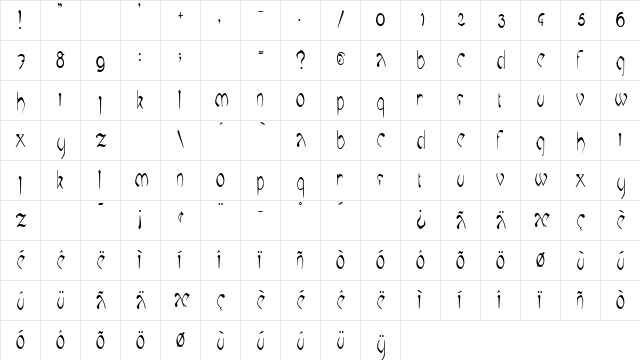
Mucha Condensed
Design Context for Mucha Typeface
Mucha is a composed and adaptable typeface that performs quietly and consistently across a wide range of design contexts. The condensed width makes it efficient for tight spaces without sacrificing legibility.